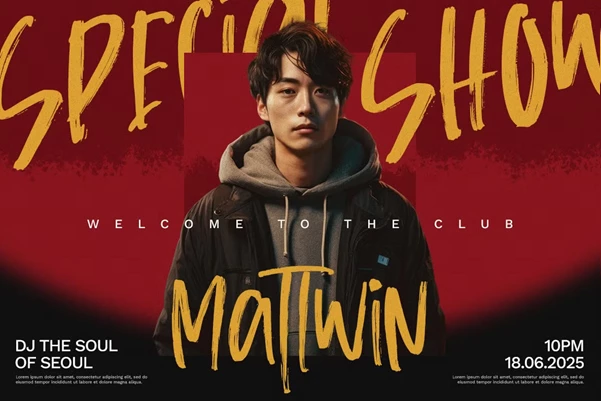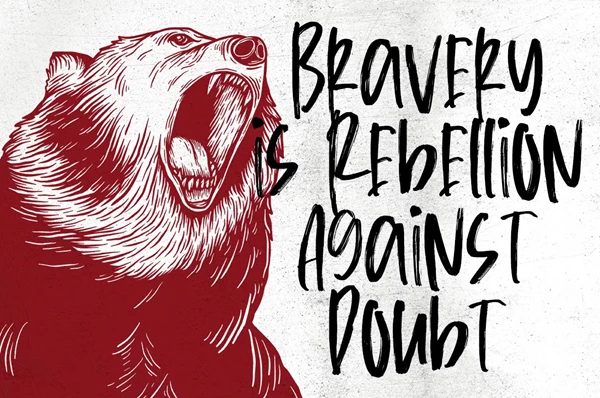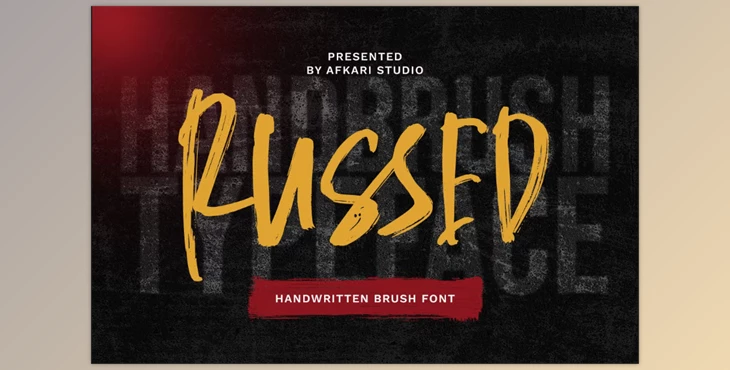
Russed - Handwritten Brush Font:
Russed will stand out on your designs with its handwritten brush type face - a font that will instill the projects with energy and vibrance. The look of the font is bold and inspiring, marking its expression with creativity; owing to its brush strokes look, it brings a desiring handmade feel, which completes the goals of creative, bold projects. With Russed, every text looks alive, flowing artistic over what is known as the page.
Some great features of Russed - Handwritten Brush Font:
- A complete collection of uppercase letters of the alphabet as well as lowercase, numbers, and other vital signs to give balanced flexibility within typography.
- Delivery of sufficient visual entertainment value through inclusion with no limits of special alternates living by visual creation and curious ligatures.
The font increases the efficiency of multiple languages with special symbols including, but not limited to, ä, ö, ü, Ä, Ö, Ü, ß, ¿, and ¡.
Express yourself freely with Russed a brush type ready to be transformed into graphics with more character bursting with lively energy embellishing your designs!